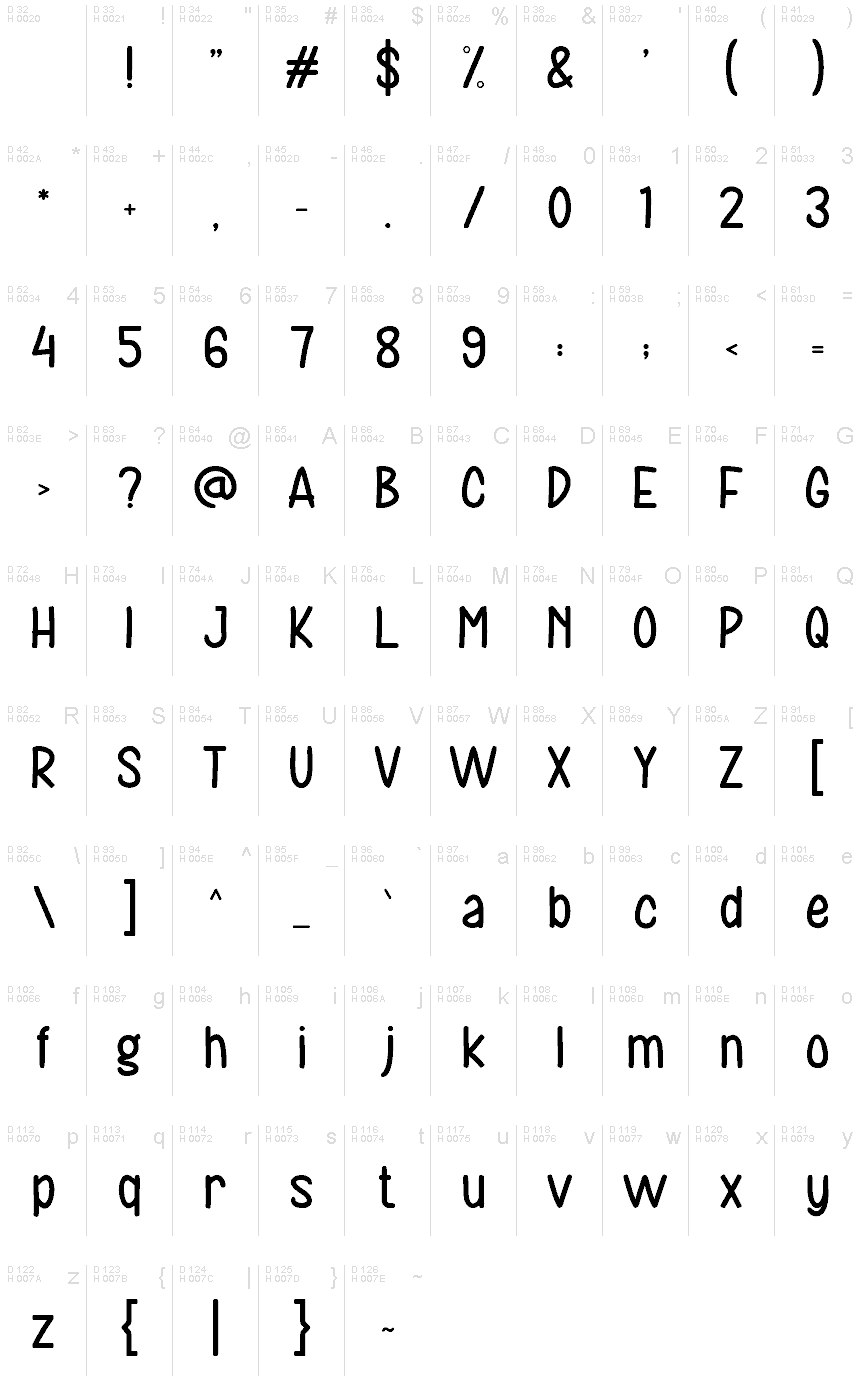
Snowman House
Snowman House font designed by Gilang Ternadho offers warmth, nostalgia, and a casual vibe through its beautiful letters. The free handwritten font equally combines an approachable and vintage-inspired appearance that makes it special. It is the perfect addition for projects with a handcrafted feel.
This thick text can be used in menus, labels, packaging designs, invitations cards, headers, posters titles, children’s books covers, cartoon intros and arts or even magazines’ cover images.